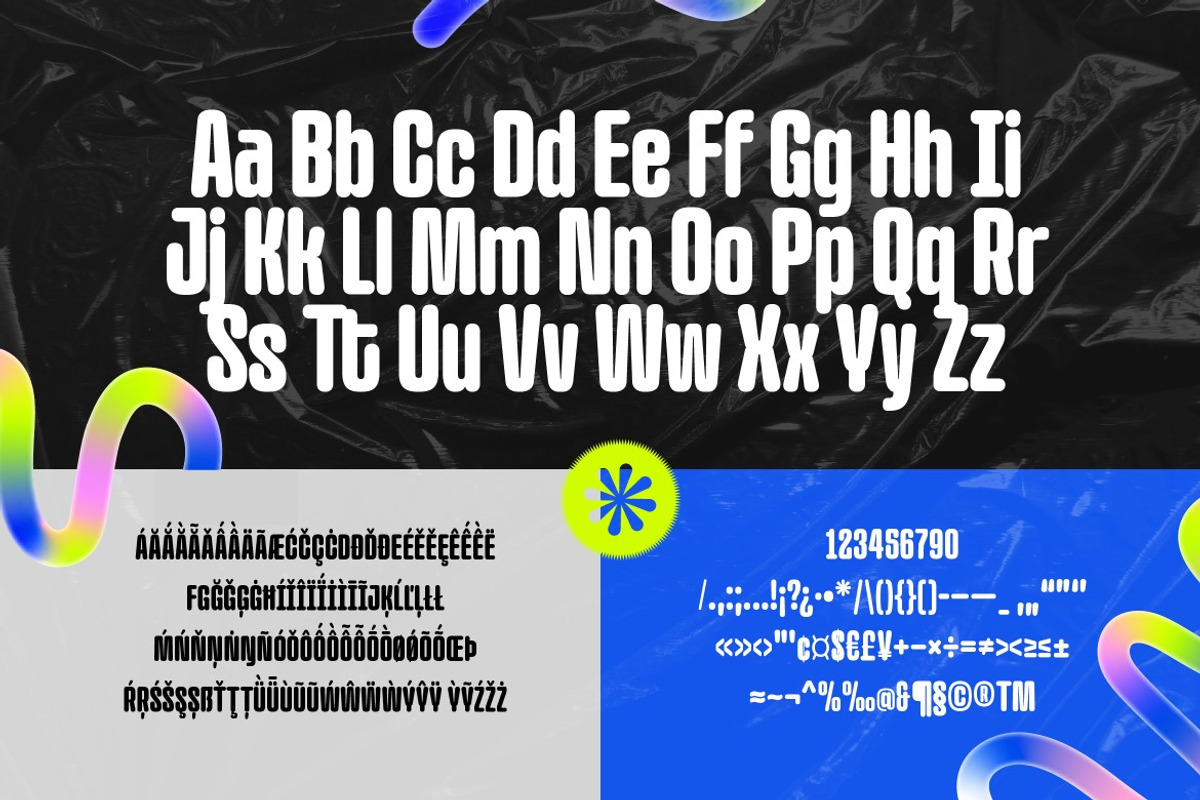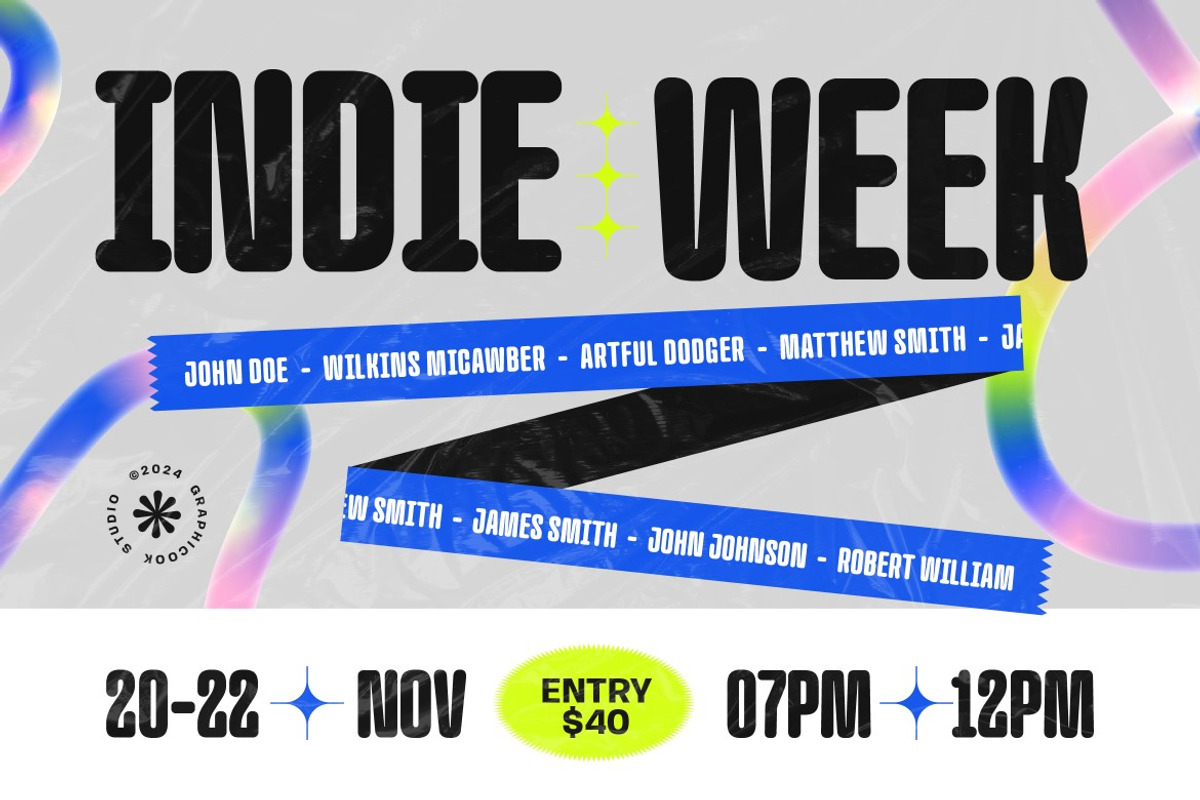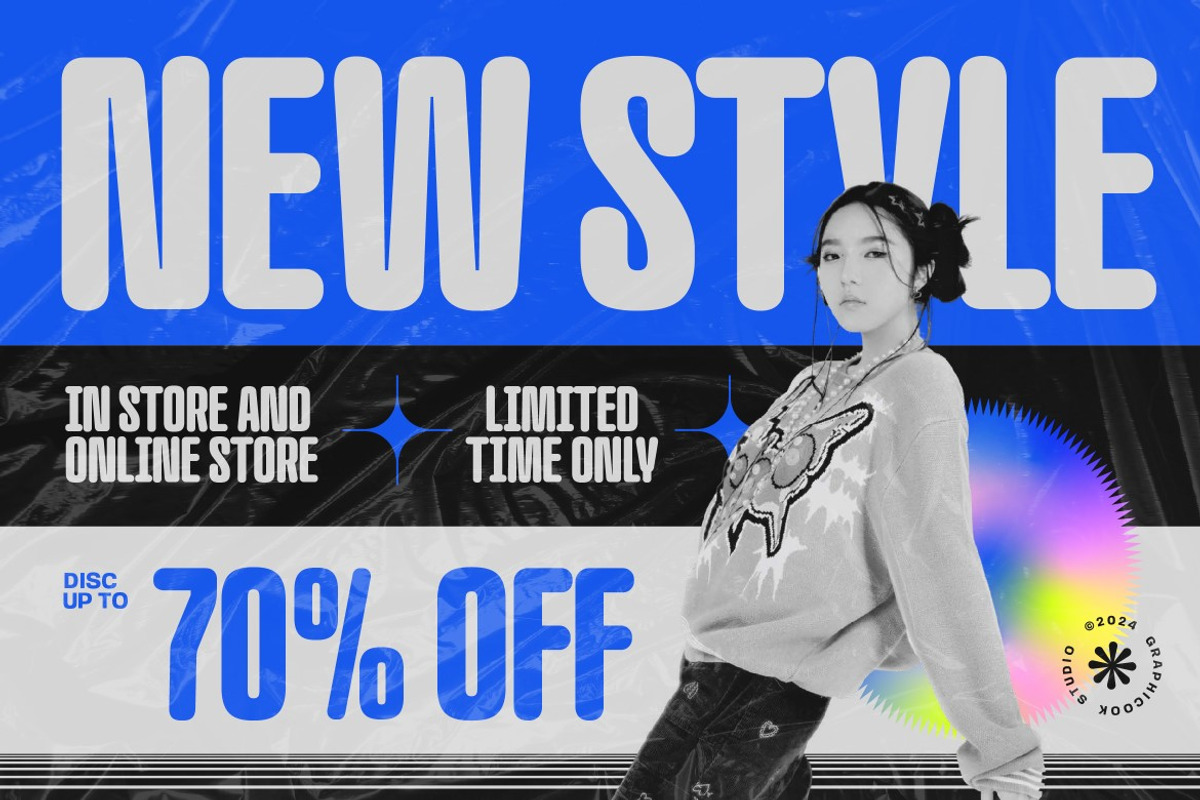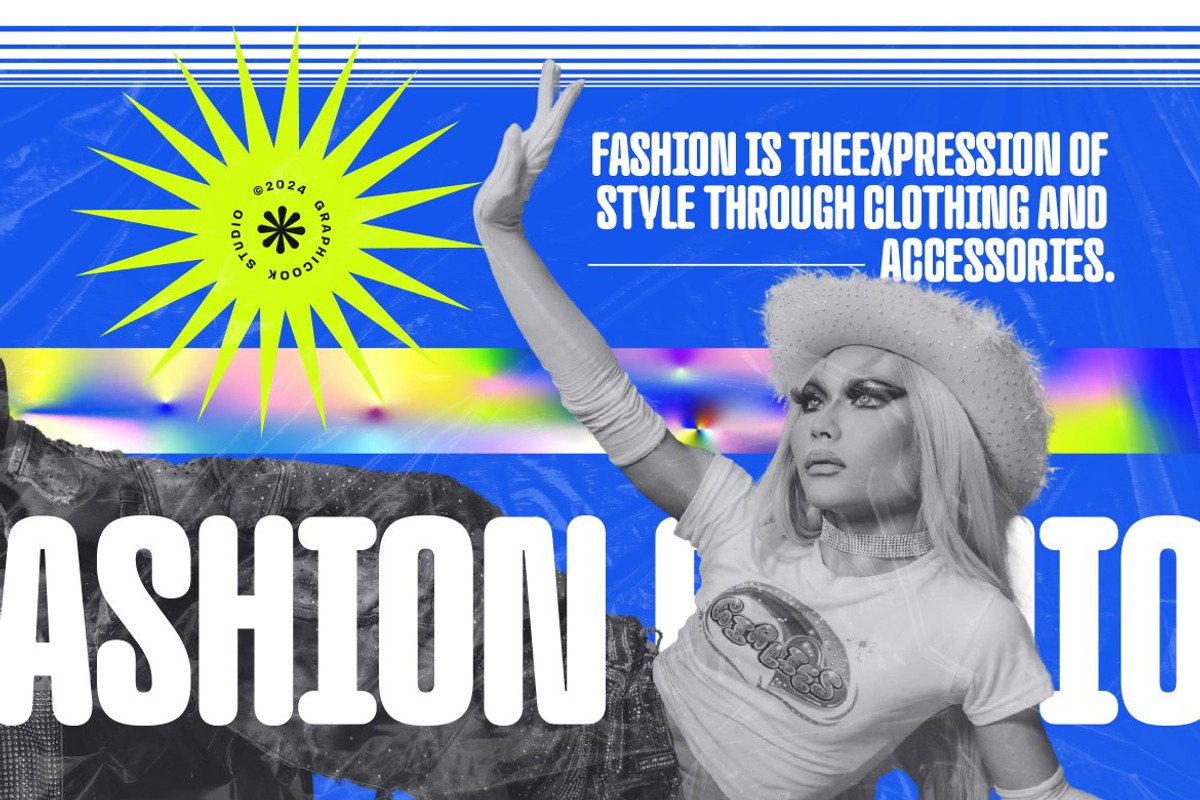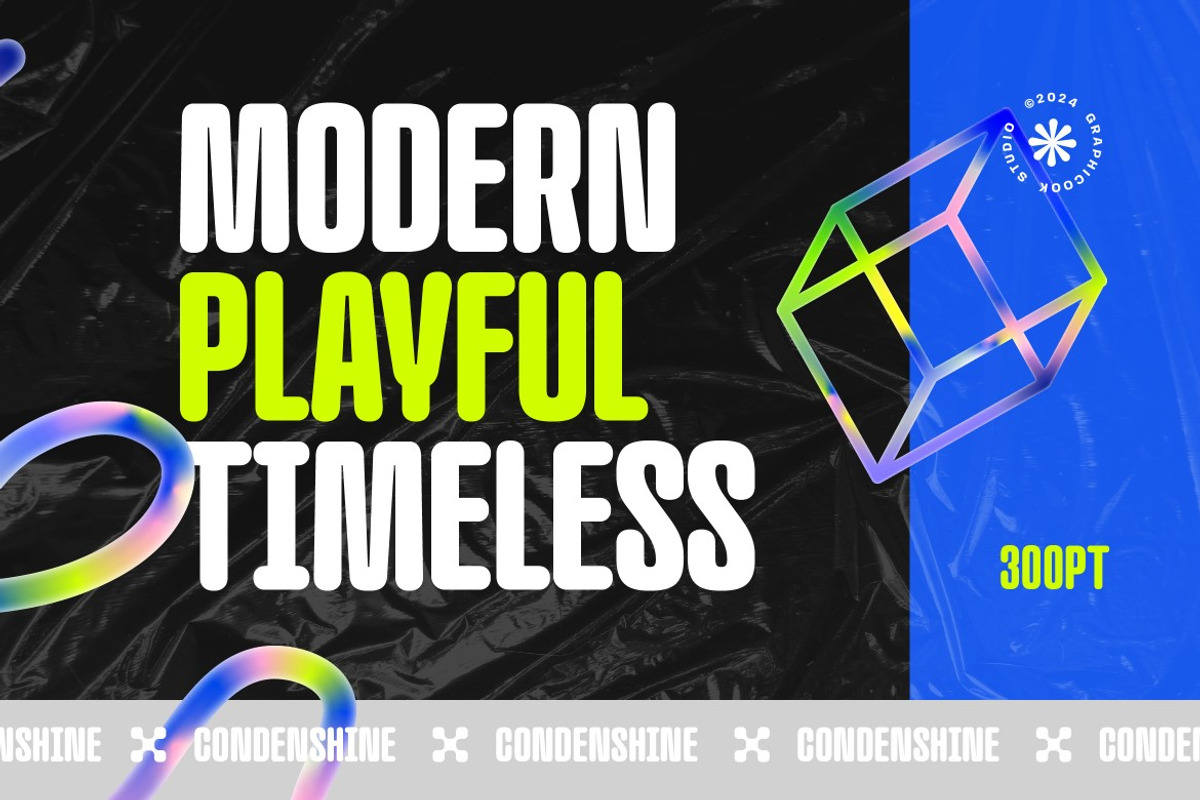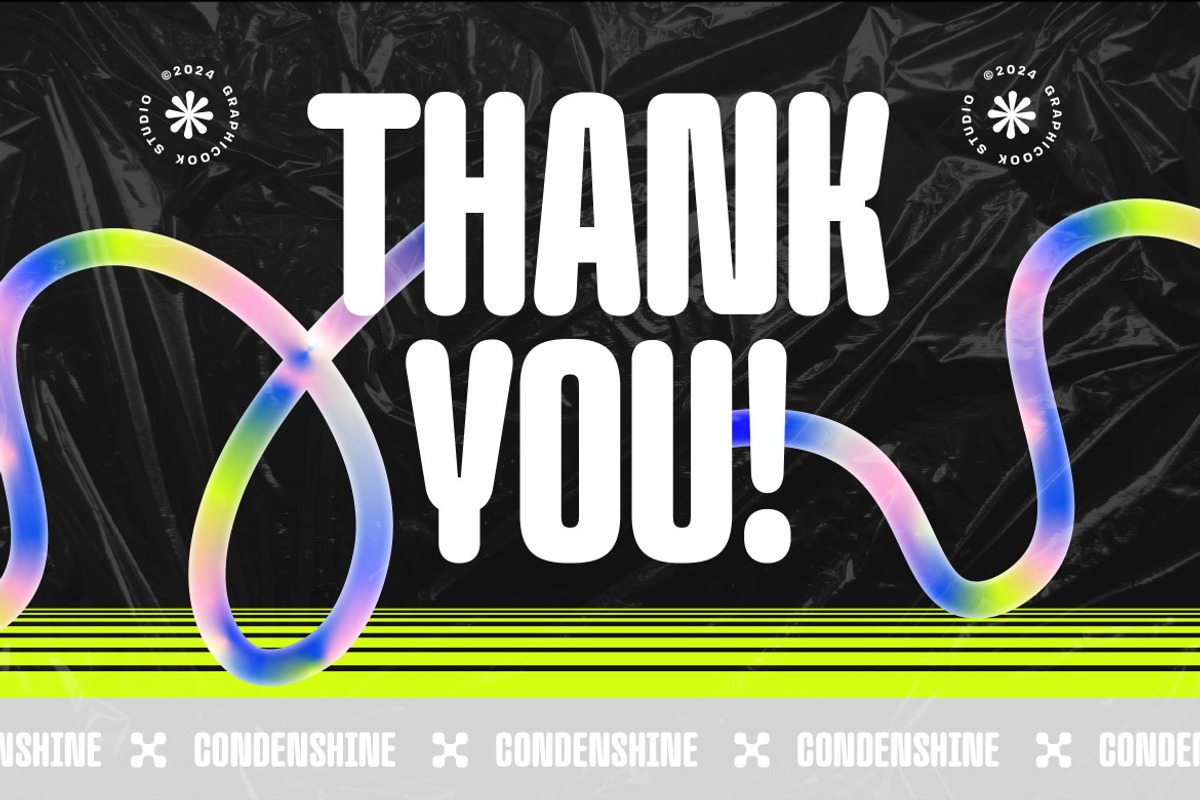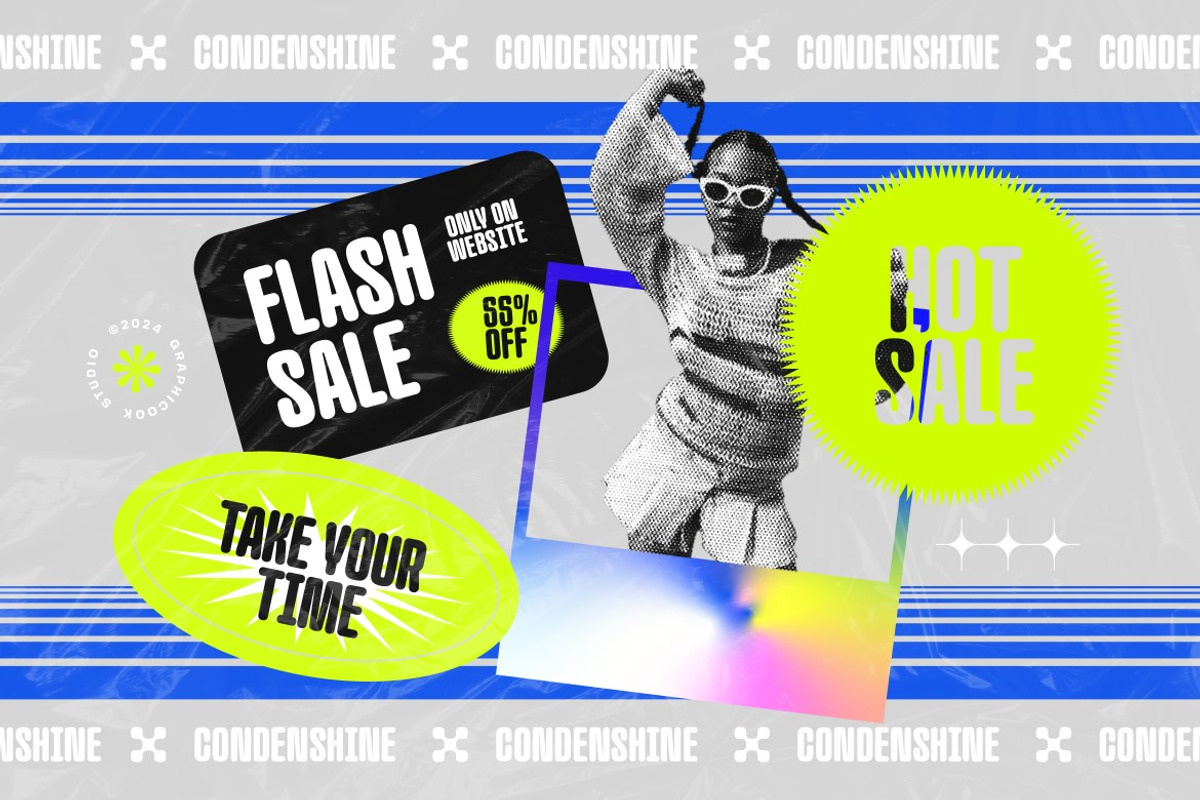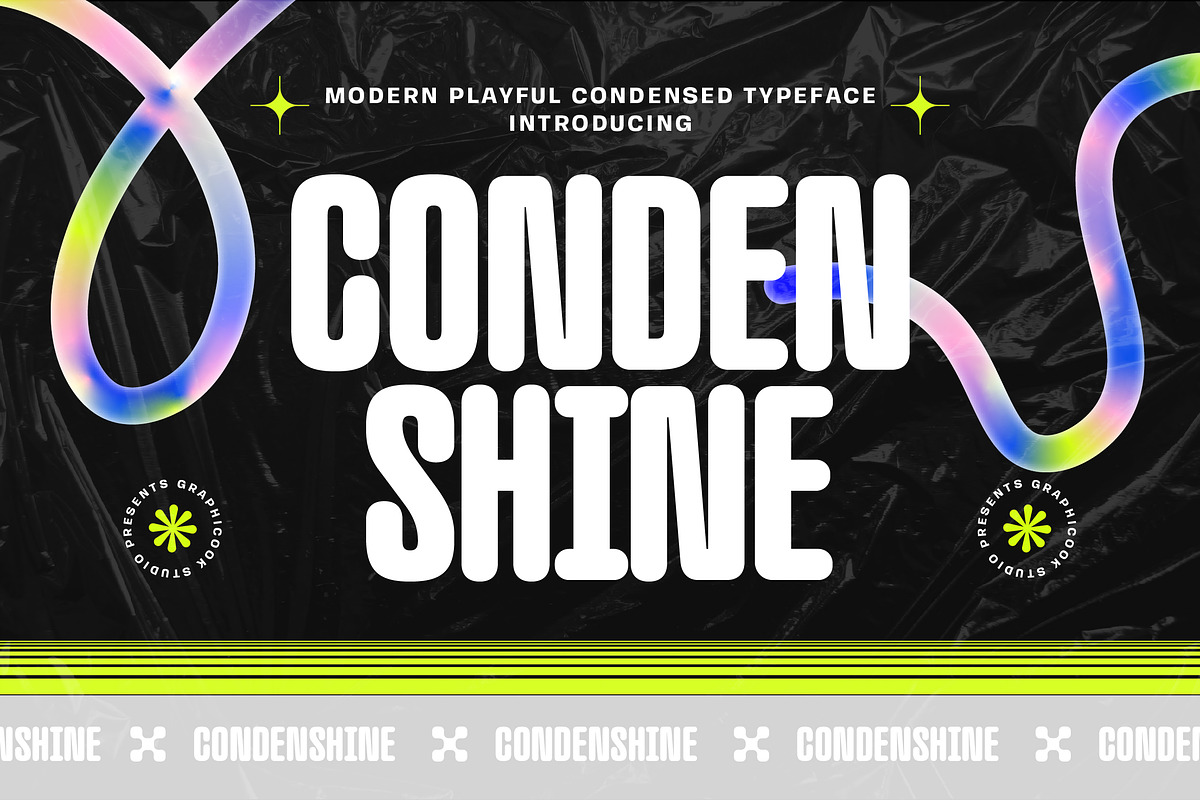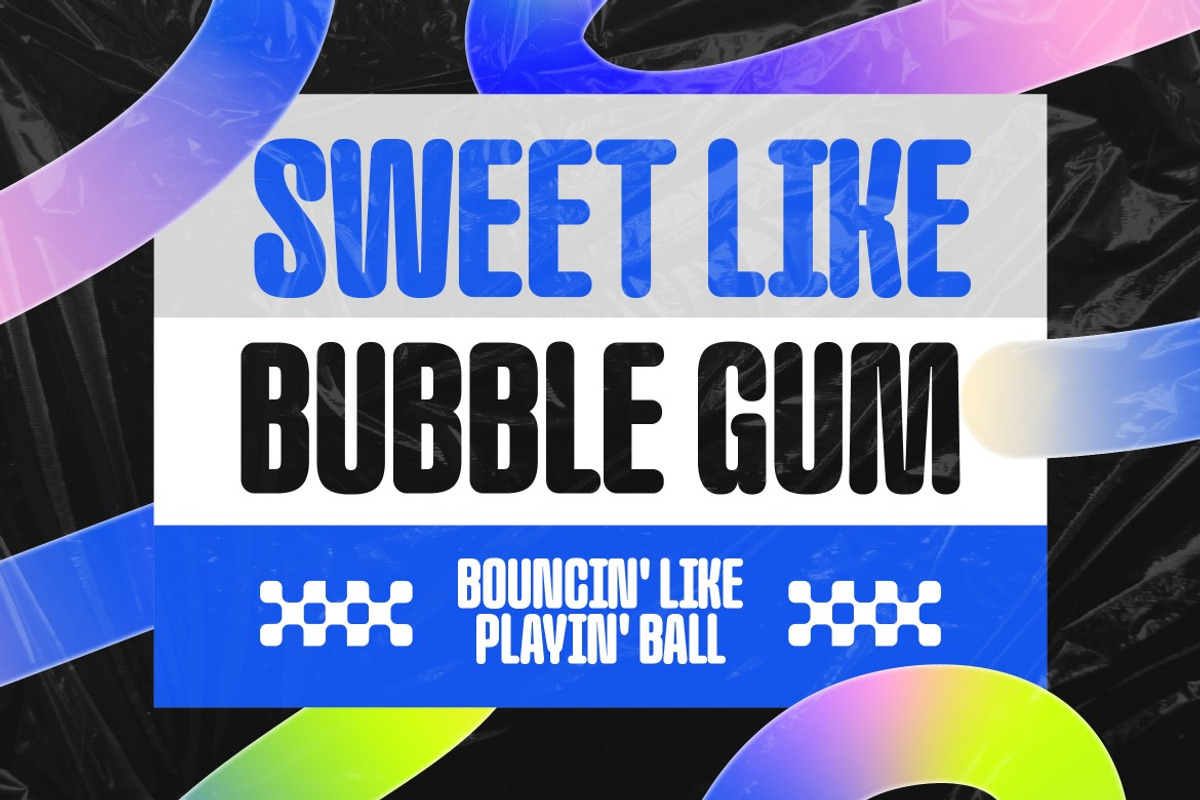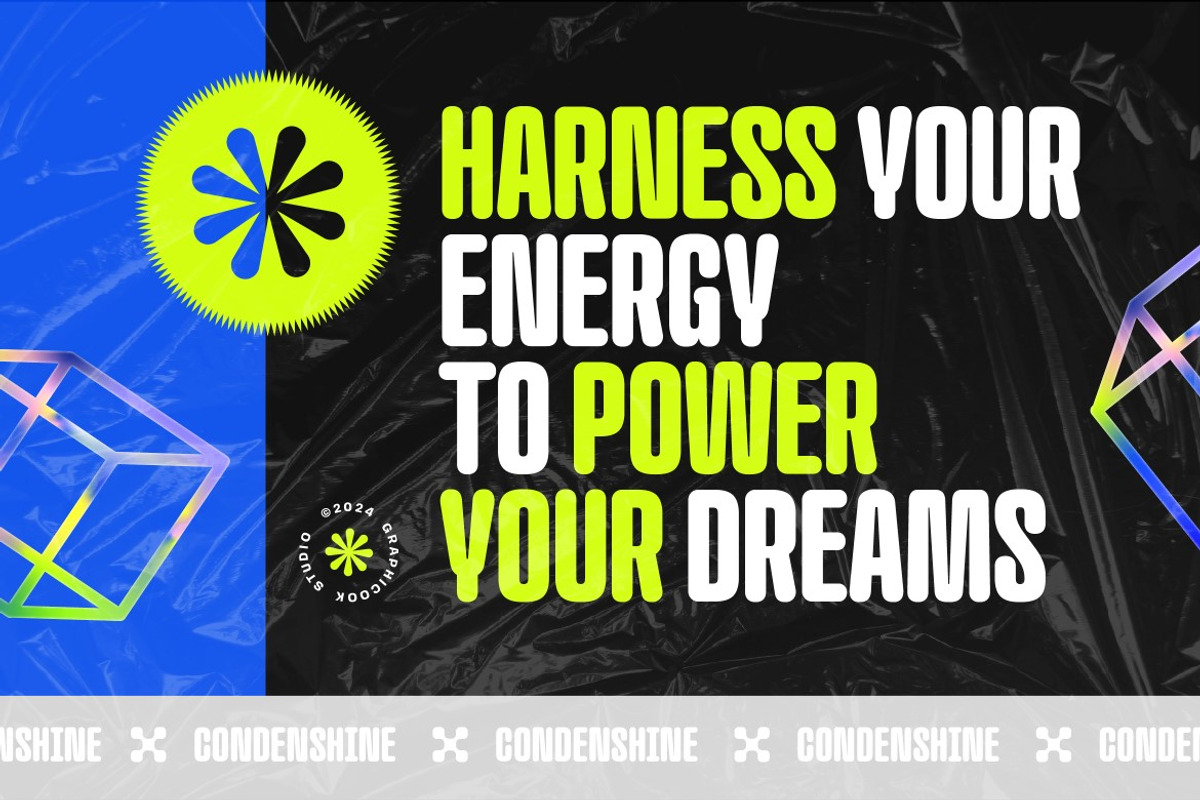
Condenshine
Introducing Condenshine Typeface! A modern, condensed font featuring rounded letters, perfect for headlines, packaging, or any design that requires a bold and tall font.
Condenshine is perfect for headlines, logotypes, magazines, packaging, quotes, movies, games, cover albums, book covers, and flyers, it's a perfect solution for creating eye-catching designs that stand out in any context.